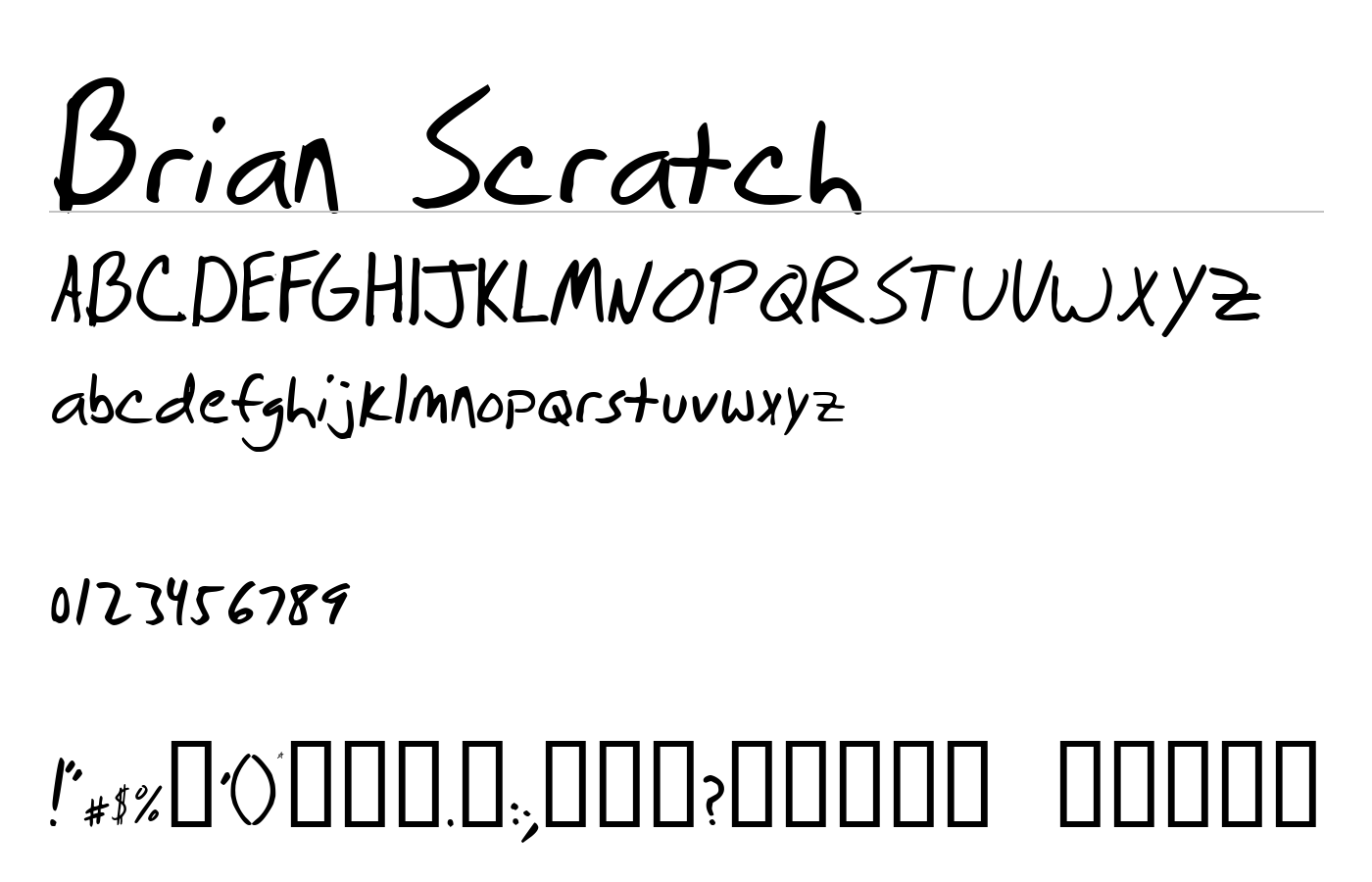
Brian Scratch is a playful and informal handwritten sans serif font with a lively, uneven stroke that mimics natural pen writing. Its casual style and slightly irregular letterforms give it a warm, approachable feel, making it ideal for creative projects, personal branding, or any design seeking a friendly, human touch. This font works well in headlines, invitations, and artistic layouts where a relaxed, authentic vibe is desired.
Brian Scratch Font
About Brian Scratch Font